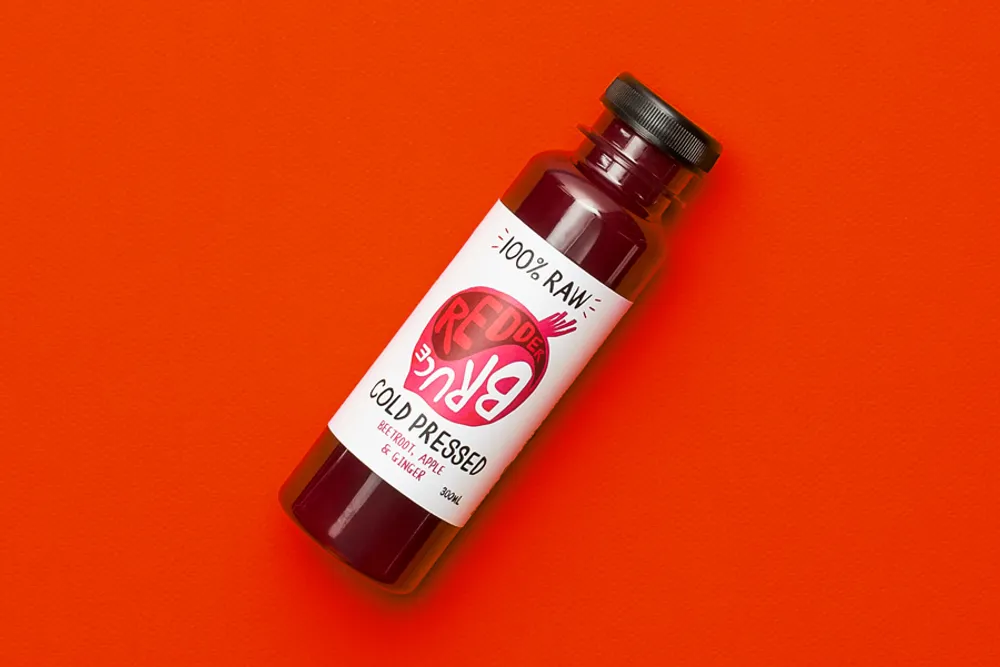
Fonts in Use: Daft Brush
Bruce Juice
Bruce Juice by Marx Design, New Zealand.
(…) The loose, irregular strokes, uppercase characters, mix of orientation, direction, and the adaptive quality of the logotype maintain the energy and quirky qualities of the illustrative work. The characters are well-drawn and find a balance between a youthful exuberance, expressive brand character, legibility and personality. (…)